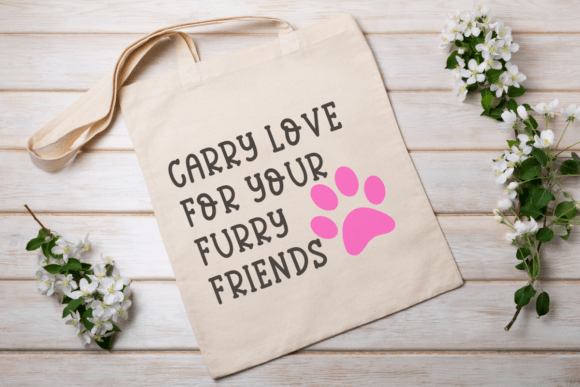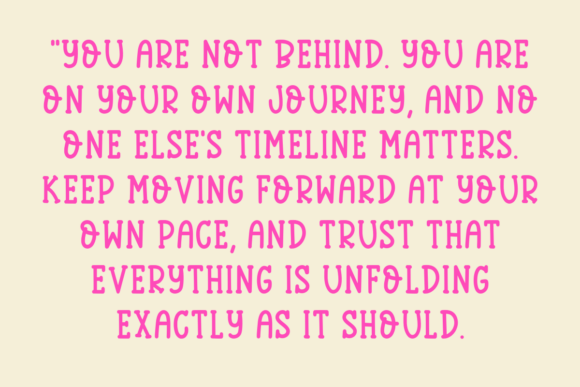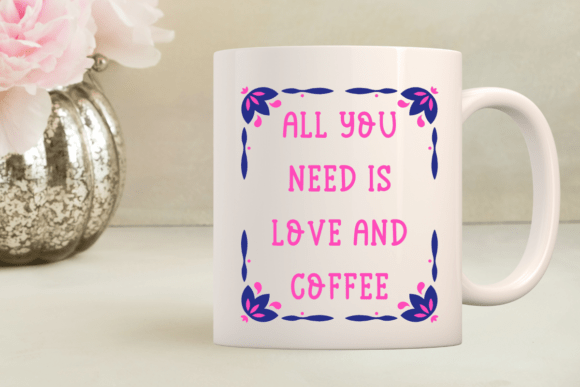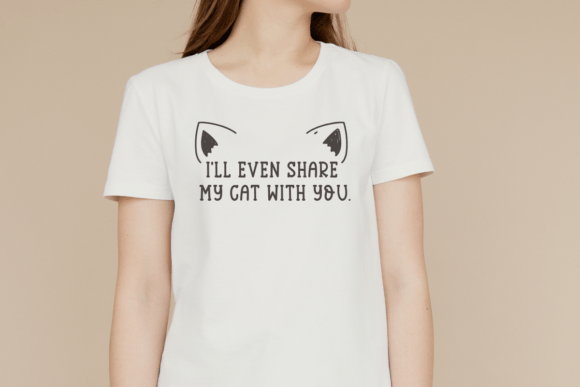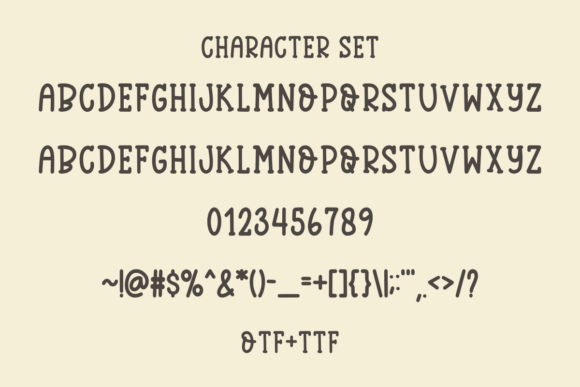
Introducing Fluffy Basket Font: The Perfect Addition to Your Creative Projects
Are you a crafter, designer, or maker looking for a fun and playful font to elevate your creative projects? Look no further than Fluffy Basket Font! This adorable font is perfect for a variety of applications, including crafts, planners, KDP, stickers, greeting cards, and more. Its cute and friendly style makes it an ideal choice for Cricut, sublimation, and DIY projects.
What Makes Fluffy Basket Font So Special?
Fluffy Basket Font is a unique and charming font that’s sure to capture the hearts of crafters, designers, and makers. Its playful style is reminiscent of handwritten notes and whimsical illustrations, making it perfect for projects that require a personal touch. Whether you’re creating custom stickers, greeting cards, or planners, Fluffy Basket Font is sure to add a touch of warmth and personality to your designs.
Perfect for Crafters, Designers, and Makers
Fluffy Basket Font is specifically designed with crafters, designers, and makers in mind. Its versatility makes it suitable for a wide range of creative projects, including:
- Crafts: Use Fluffy Basket Font to add a personal touch to your craft projects, such as handmade cards, gift tags, and scrapbooking.
- Planners: Add a playful touch to your planners and journals with Fluffy Basket Font. It’s perfect for creating custom headers, titles, and labels.
- KDP: Use Fluffy Basket Font to create eye-catching book covers, titles, and headings for your Kindle Direct Publishing (KDP) projects.
- Stickers: Create custom stickers with Fluffy Basket Font for your planners, journals, or laptops.
- Greeting Cards: Add a personal touch to your greeting cards with Fluffy Basket Font. It’s perfect for creating custom titles, headings, and messages.
Works Great with Cricut, Sublimation, and DIY Projects
Fluffy Basket Font is compatible with a variety of creative tools and techniques, including:
- Cricut: Use Fluffy Basket Font with your Cricut machine to create custom vinyl decals, iron-on designs, and paper crafts.
- Sublimation: Apply Fluffy Basket Font to your sublimation projects, such as custom mugs, t-shirts, and phone cases.
- DIY Projects: Use Fluffy Basket Font to add a personal touch to your DIY projects, such as handmade home decor, gift tags, and party decorations.
Why Choose Fluffy Basket Font?
There are many reasons why Fluffy Basket Font stands out from other fonts. Here are just a few:
- Unique and Playful Style: Fluffy Basket Font has a one-of-a-kind style that’s sure to capture the attention of your audience.
- Easily Readable: Despite its playful style, Fluffy Basket Font is easily readable, making it perfect for titles, headings, and body text.
- Versatile: Fluffy Basket Font can be used for a wide range of creative projects, from crafts and planners to KDP and stickers.
Get Creative with Fluffy Basket Font Today!
In conclusion, Fluffy Basket Font is a fun and playful font that’s perfect for crafters, designers, and makers. Its cute and friendly style makes it suitable for a wide range of creative projects, from crafts and planners to KDP and stickers. With its compatibility with Cricut, sublimation, and DIY projects, Fluffy Basket Font is an ideal choice for anyone looking to add a personal touch to their designs. So why wait? Download Fluffy Basket Font today and start creating!